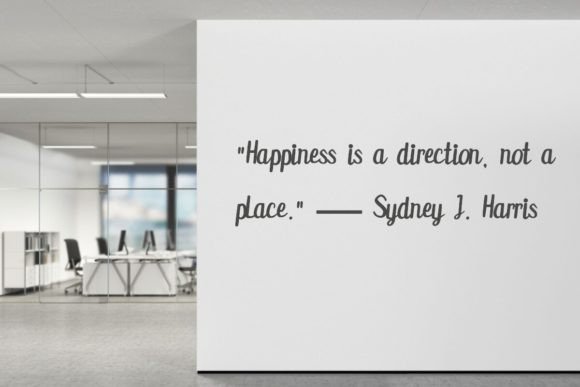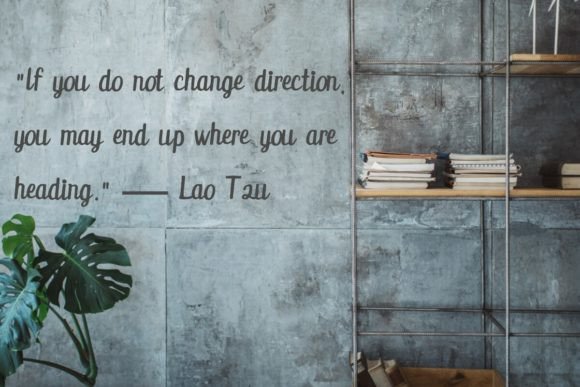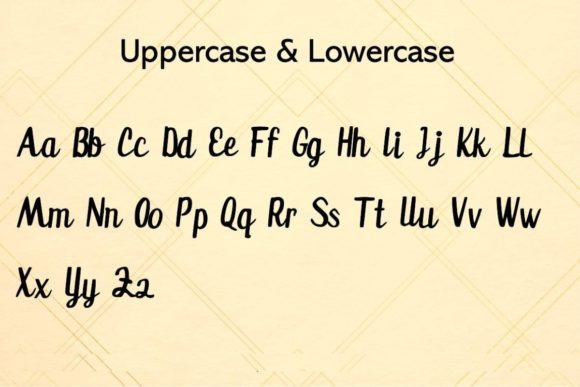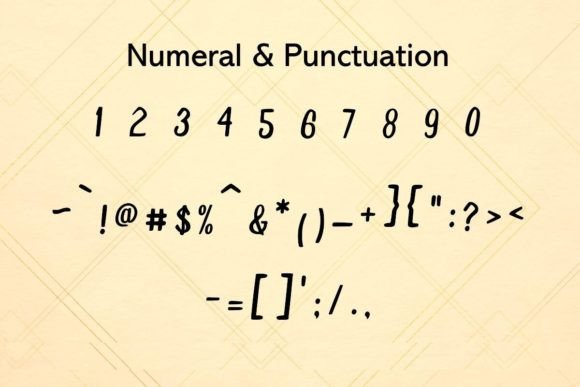
Introducing Acramento Font: Timeless Elegance for Modern Designs
In the world of typography, few fonts manage to capture the essence of a bygone era while still feeling fresh and modern. Acramento Font is one such gem that brings the elegance of the 1950s and 1960s to your design projects. This handwritten font is a masterpiece of modern calligraphy, blending formal sophistication with a casual flair that’s sure to captivate your audience.
The Charm of Acramento Font
Acramento Font is a semi-connected script that echoes the hand-lettering artistry of a bygone era. Its fluid strokes and elegant letterforms evoke the charm of vintage brochures and advertisements from the 1950s and 1960s. Yet, despite its retro inspiration, Acramento feels surprisingly modern and versatile, making it perfect for a wide range of design applications.
Acramento Font boasts a range of design characteristics that make it an excellent choice for designers and crafters. Some of its key features include:
- Fluid, semi-connected script: Acramento’s script is characterized by flowing connections between letters, creating a sense of movement and elegance.
- Timeless charm: The font’s vintage inspiration gives it a timeless quality that never goes out of style.
- Formal elegance: Acramento’s letterforms are sophisticated and refined, making it perfect for formal designs and luxury brands.
- Casual flair: Despite its formal elegance, Acramento has a playful, casual side that adds a personal touch to your designs.
Perfect for Headlines, Titles, and Personal Branding
Acramento Font is specifically designed for headlines, titles, and personal branding. Its commanding presence and elegant letterforms make it perfect for:
- Wedding invitations: Add a touch of sophistication and romance to your wedding invitations with Acramento.
- Business cards: Elevate your business card design with Acramento’s elegant script.
- Social media graphics: Make your social media graphics stand out with Acramento’s unique blend of formal and casual flair.
Why Choose Acramento Font?
With so many fonts available, why choose Acramento? Here are just a few reasons why designers and crafters love this elegant script:
- Unique style: Acramento’s blend of formal elegance and casual flair makes it a standout in any design.
- Versatility: The font is suitable for a wide range of design applications, from wedding invitations to business cards and social media graphics.
- Ease of use: Acramento is easy to read and works well in both digital and print formats.
Tips for Using Acramento Font
To get the most out of Acramento Font, here are a few design tips:
- Pair with contrasting fonts: Combine Acramento with a contrasting font to create visual interest and hierarchy.
- Experiment with colors: Try Acramento with different colors and textures to add depth and personality to your design.
- Use for headlines and titles: Acramento is perfect for headlines and titles, but feel free to experiment with body text and other design elements.
Acramento Font is a timeless and elegant script that brings a touch of sophistication to any design project. With its fluid, semi-connected script and vintage inspiration, Acramento is perfect for designers and crafters looking to add a personal touch to their work. Whether you’re creating wedding invitations, business cards, or social media graphics, Acramento Font is sure to captivate your audience and leave a lasting impression.